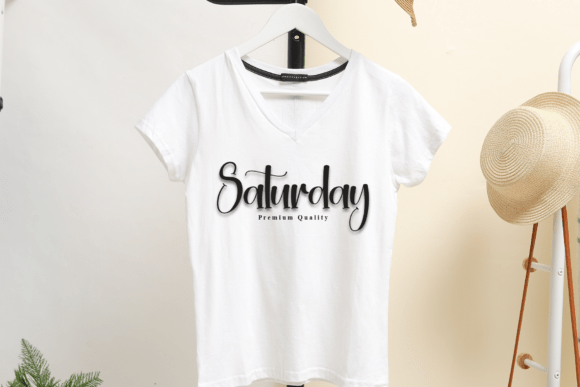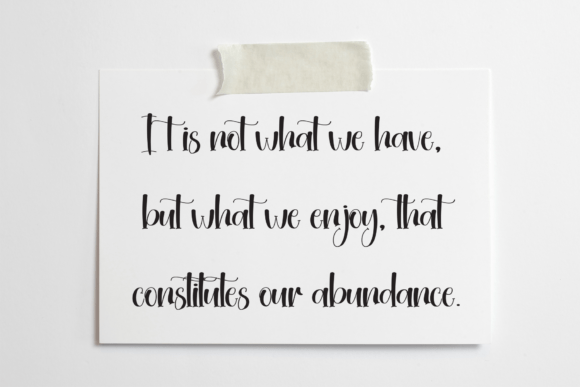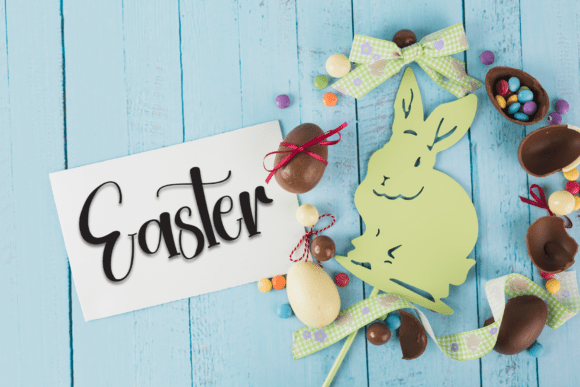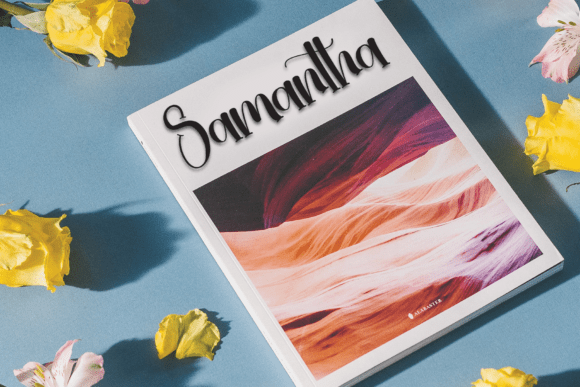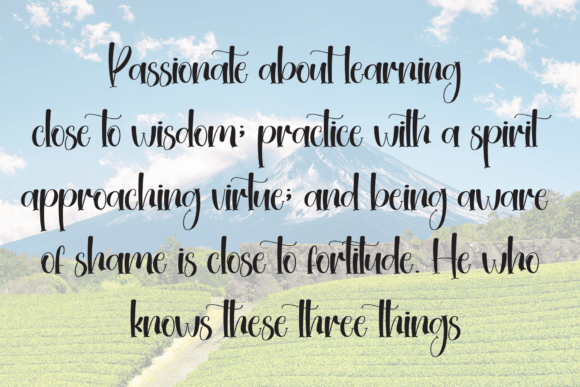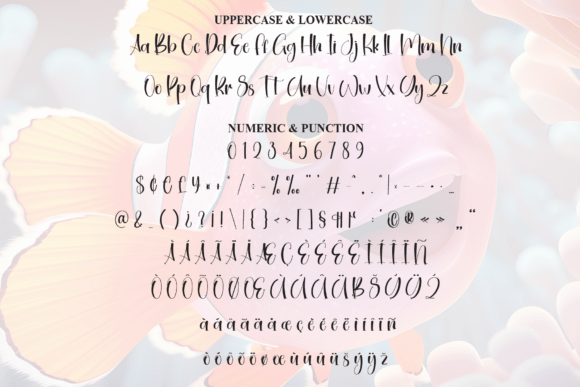
Introduction to Cute Fish Font
As designers, we’ve all been there – staring at a blank page, trying to conjure up the perfect combination of words and visuals to bring our creative project to life. But what happens when you need to add a touch of elegance and sophistication without sacrificing your personal style? That’s where the Cute Fish Font comes in – a stylish handwritten script font that’s perfect for making a lasting impression.
With its flowing strokes and organic curves, the Cute Fish Font adds a refined, effortless charm to any project. Whether you’re working on a branding campaign, designing invitations, or simply want to spice up your social media presence, this typeface is a valuable design resource that’s sure to deliver high-quality results.
Key Features of Cute Fish Font
- Transparent background: The Cute Fish Font allows for a seamless integration with any design, providing a clean and minimalist look.
- High-quality design: This font is crafted with attention to detail, making it perfect for creative projects that require a touch of elegance.
- Unique characteristics: The Cute Fish Font features a playful and whimsical design, making it perfect for children’s books, greeting cards, and other creative projects.
- Design resource: The Cute Fish Font is a valuable resource for designers, artists, and writers looking to add a touch of personality to their work.
Honest Review: Cute Fish Font
What works well with the Cute Fish Font is its high quality and versatility. It’s perfect for creative projects that require a playful and whimsical touch. I love how it can be used with a transparent background to create a beautiful, eye-catching effect. The font is also super easy to customize, which makes it a great choice for designers who need to make last-minute changes.
Here are some of the key features that make the Cute Fish Font stand out:
- Transparent background option for a beautiful effect
- Easy to customize
One limitation of the Cute Fish Font is that it’s not suitable for formal or professional projects. The font is a bit too playful and whimsical for that type of design. ⚠️
Overall, I’m really impressed with the Cute Fish Font. It’s a great addition to any designer’s library, and it’s perfect for creative projects that require a fun and playful touch. ✨
Cute Fish Font
The Cute Fish Font is a unique design resource perfect for adding a touch of whimsy to your creative project. With a high-quality, transparent background, this font is ideal for use in digital design.
Getting the Most Out of Cute Fish Font
For the best results, use the Cute Fish Font on a high-quality design with a transparent background. Experiment with different font sizes, colors, and arrangements to add visual interest to your design.
The Cute Fish Font is perfect for:
- Designing children’s products or marketing materials
- Creating social media graphics or advertisements
- Adding a playful touch to your branding or website